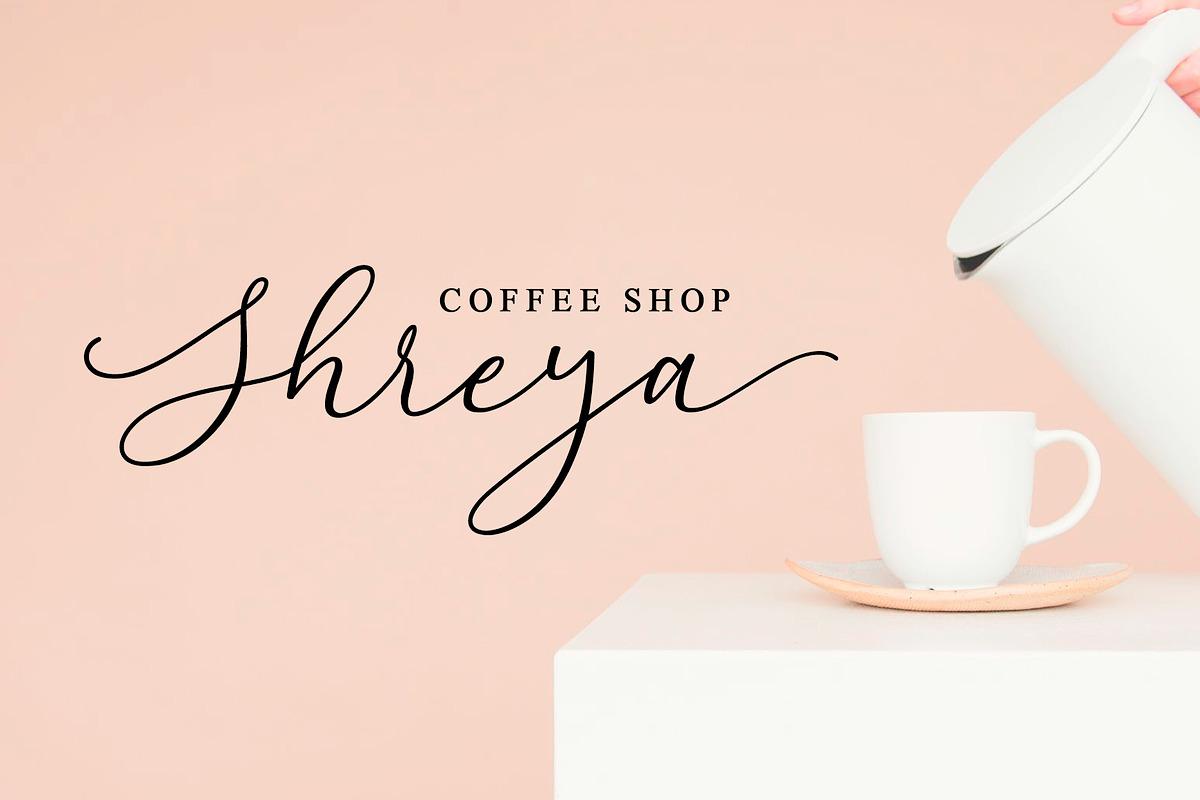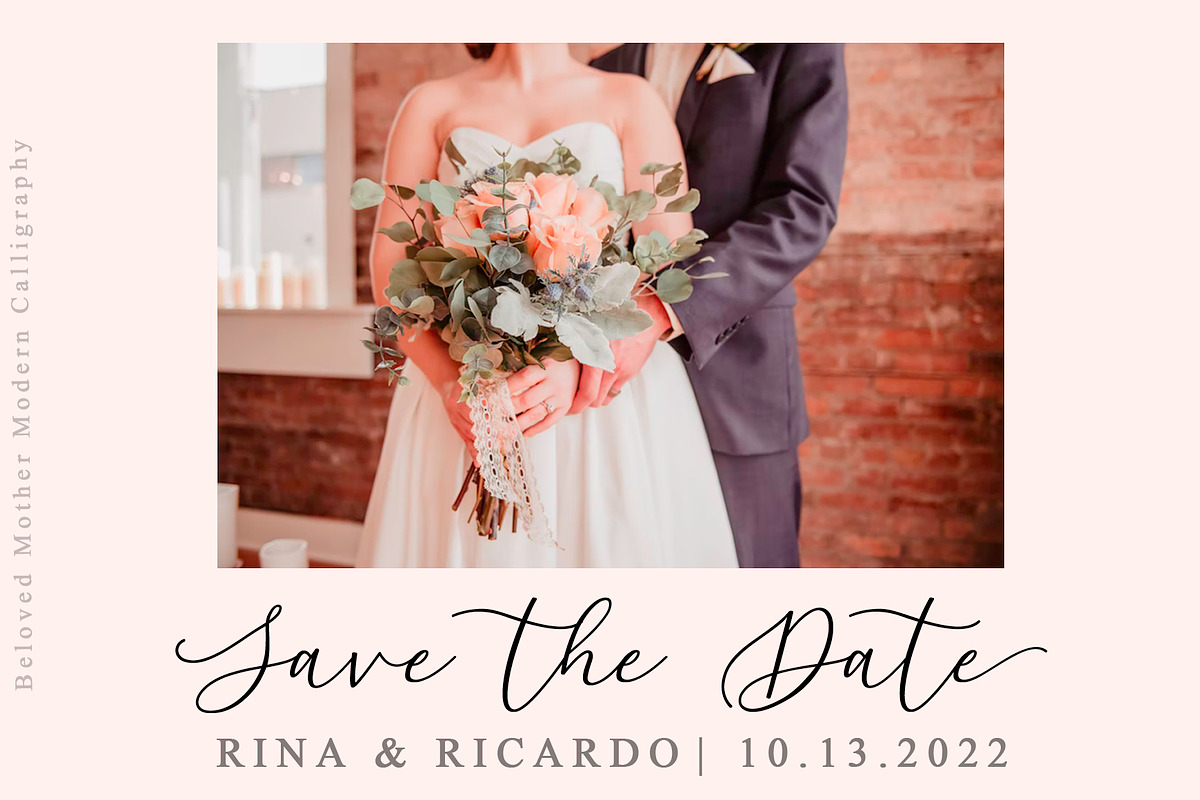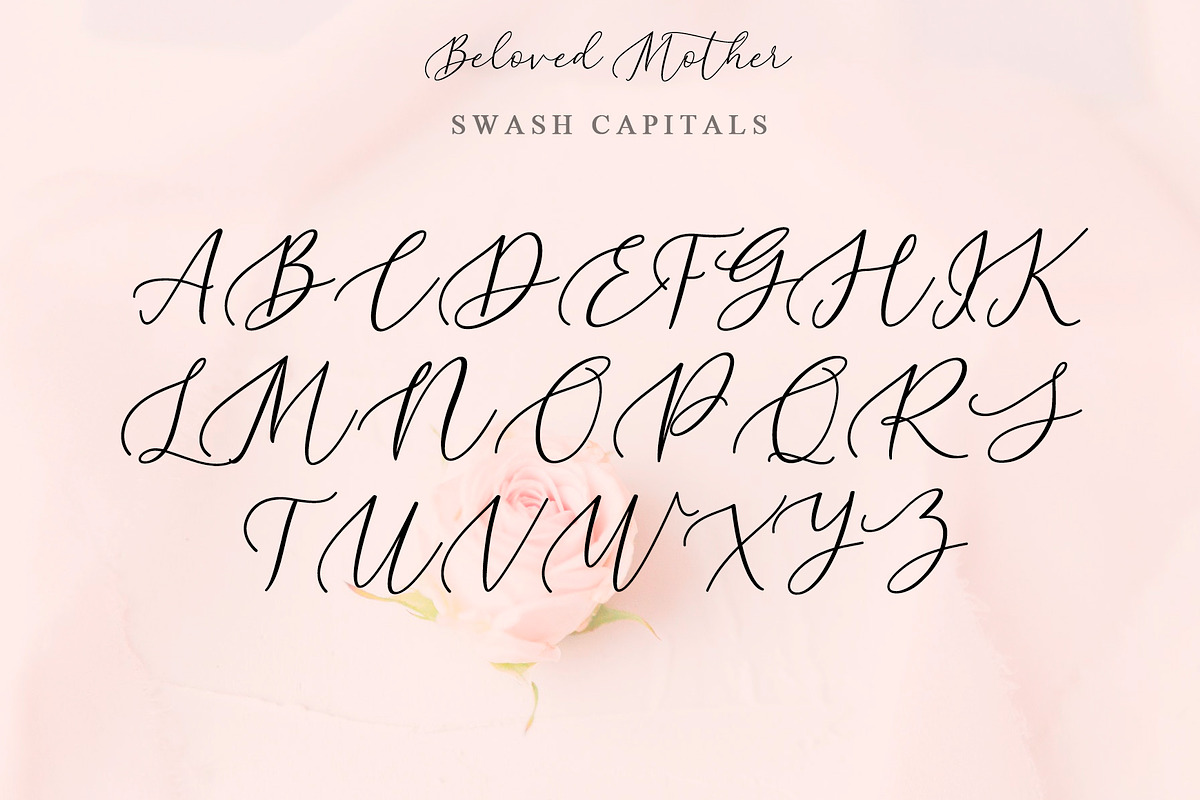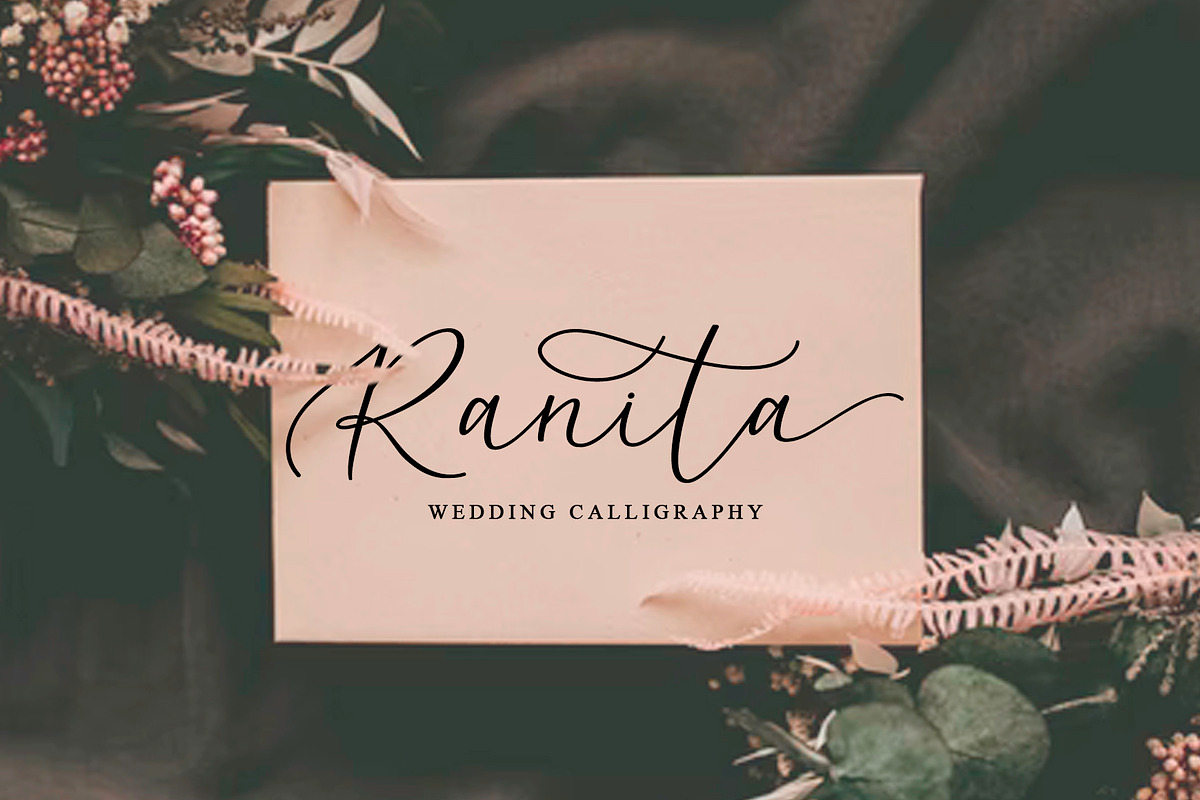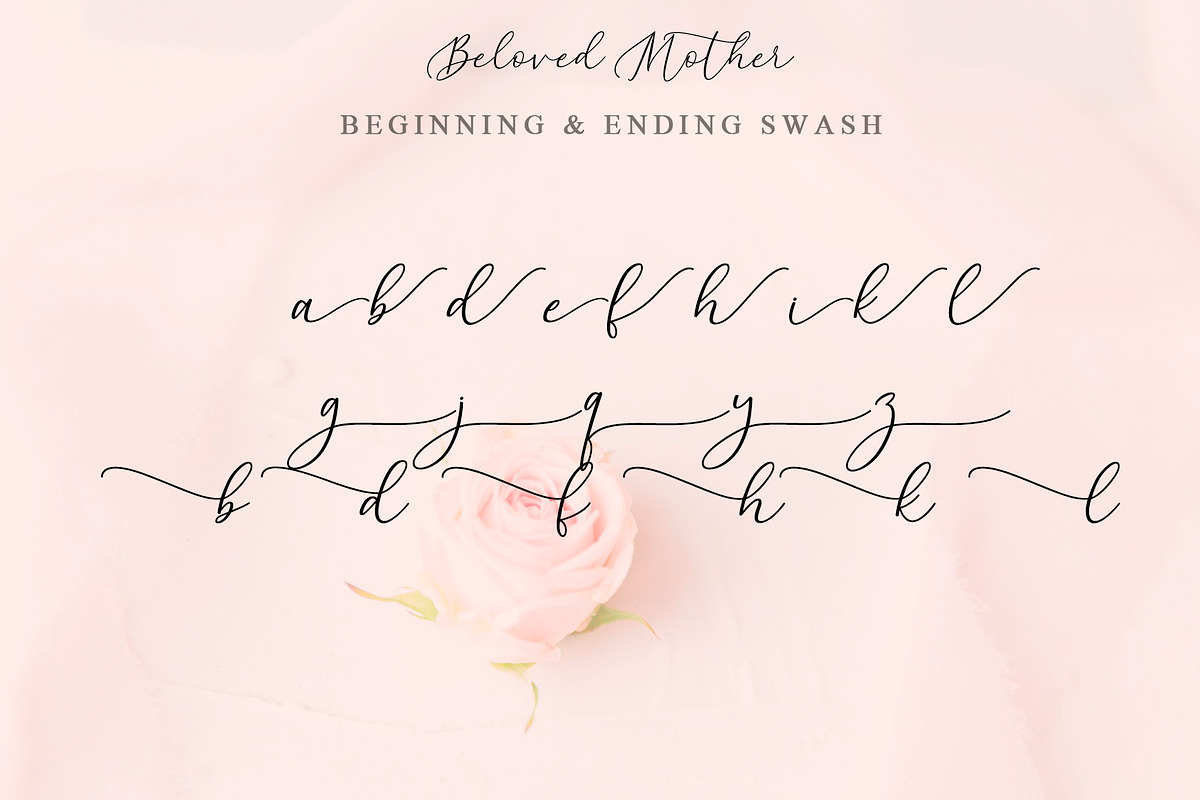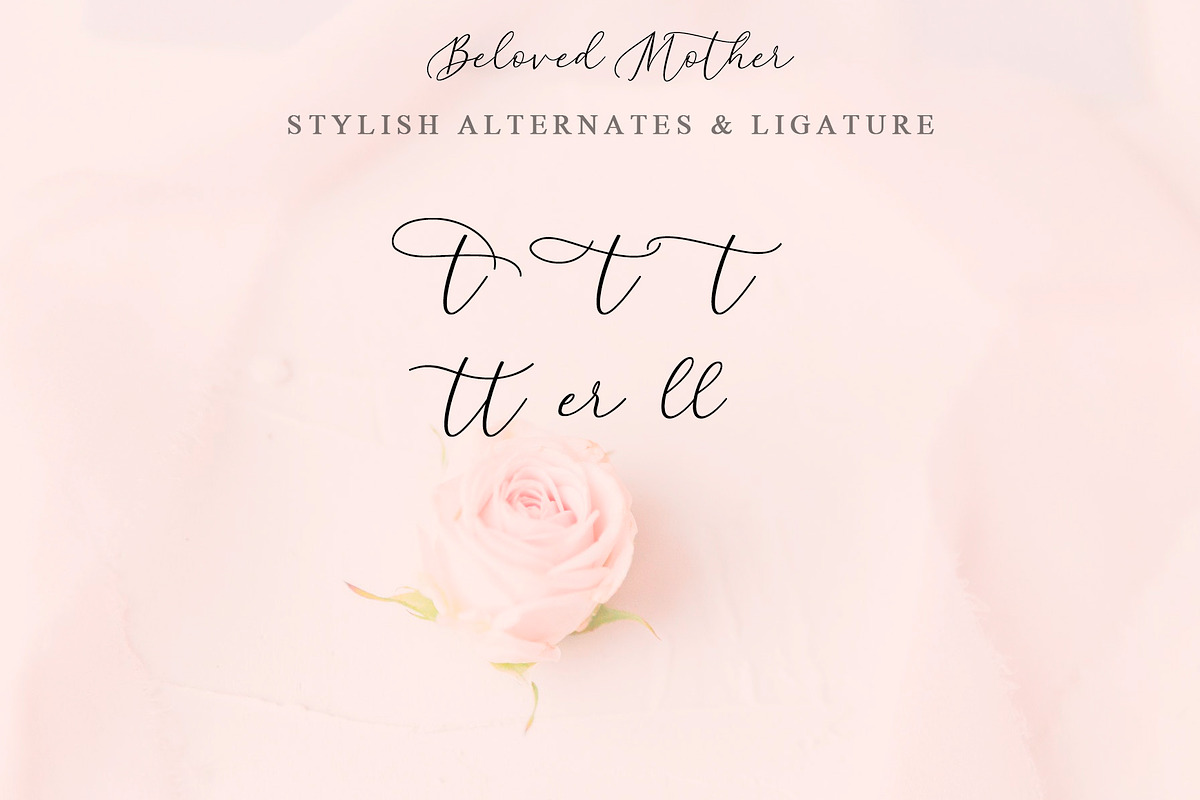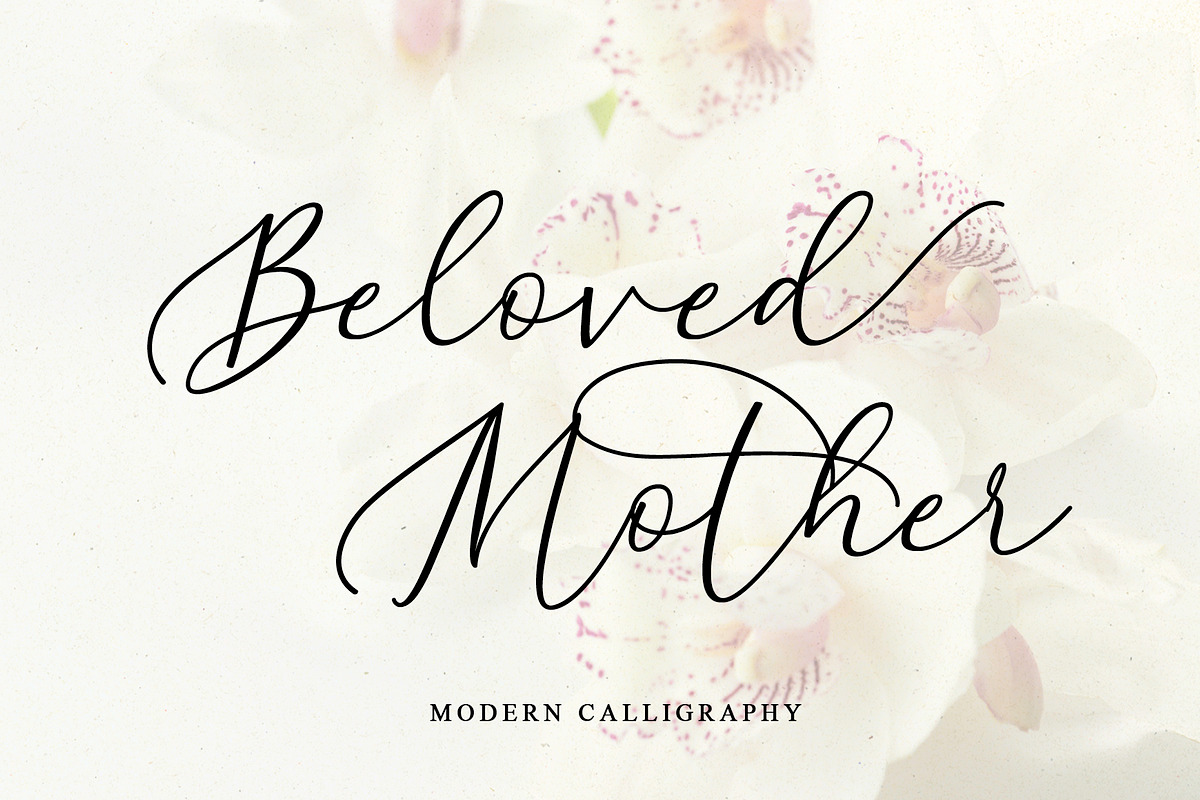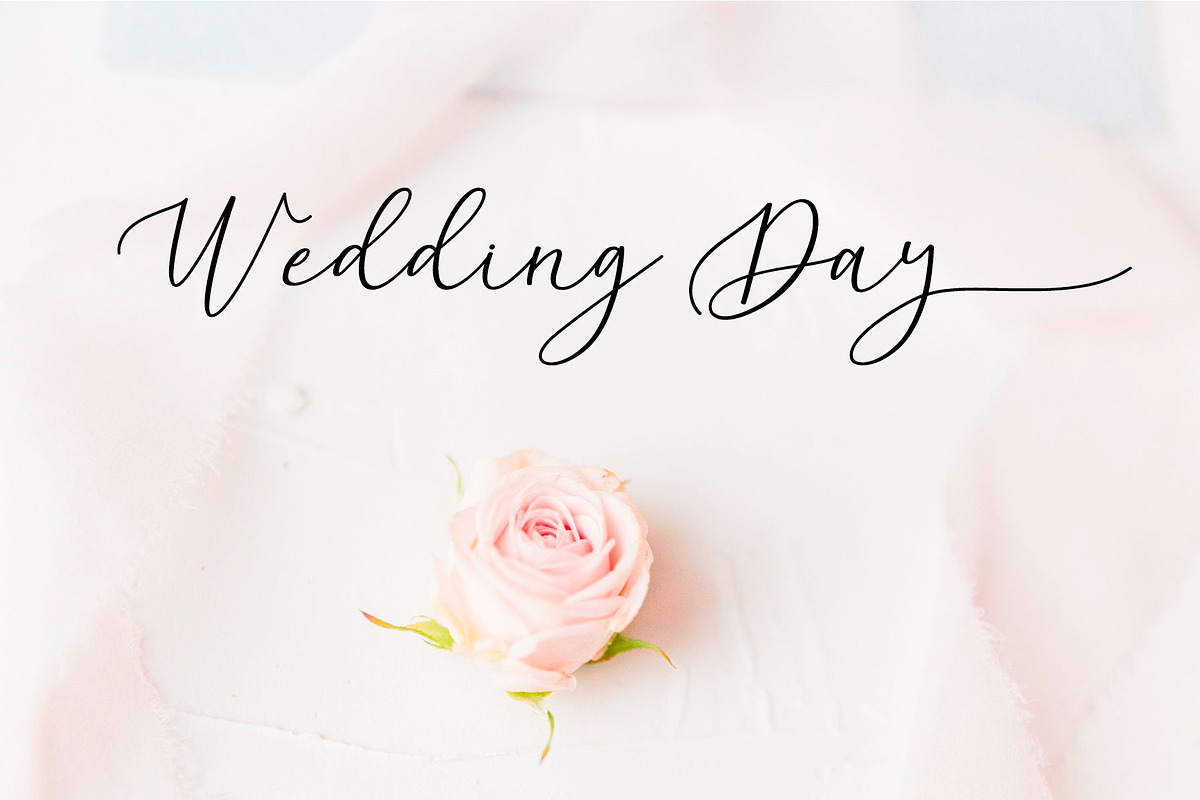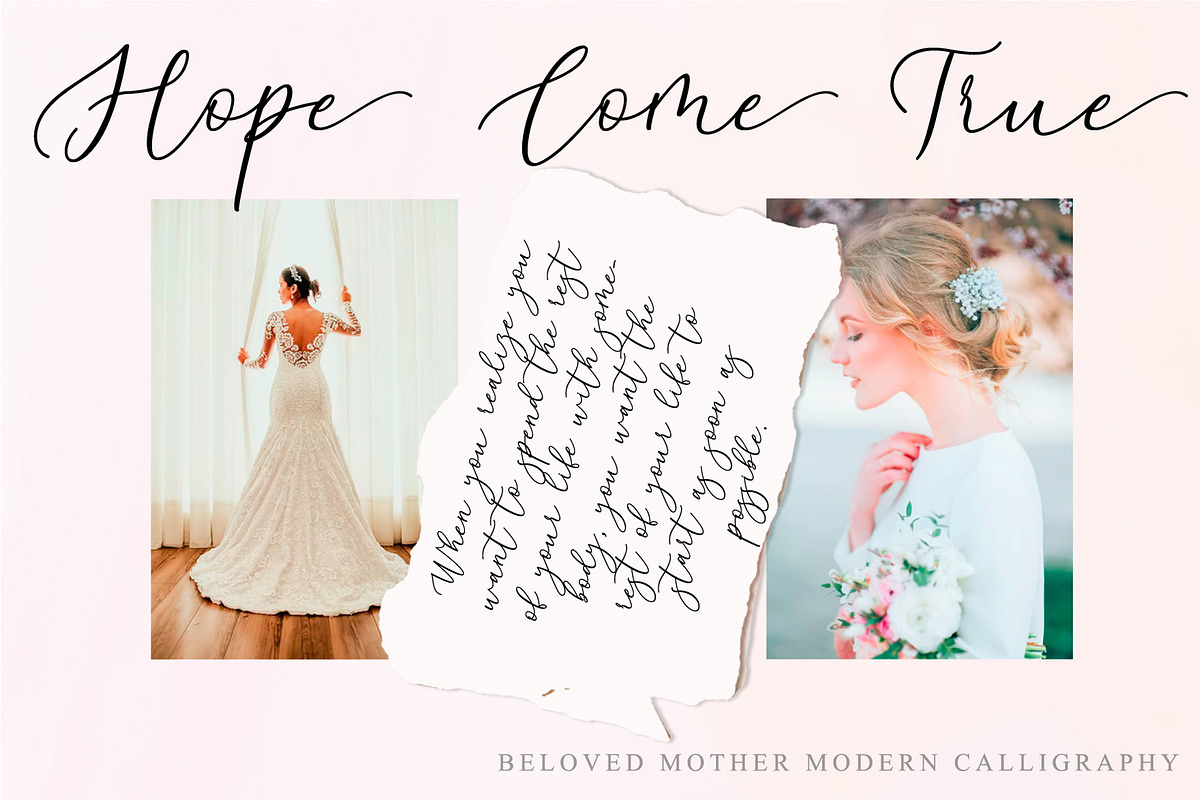
Beloved Mother | Calligraphy Font
Beloved Mother is a feminine and modern wedding calligraphy font. It is perfect for elegant logos, stationery, prints, branding, modern websites, wedding invites and cards. Beloved Mother includes full set of gorgeous uppercase and lowercase letters, numerals, a large range of ligatures and standard punctuation. All lowercase letters include ending swashes. Each swash has own trajectory.